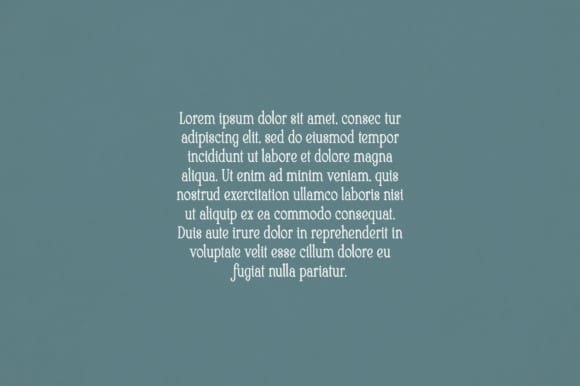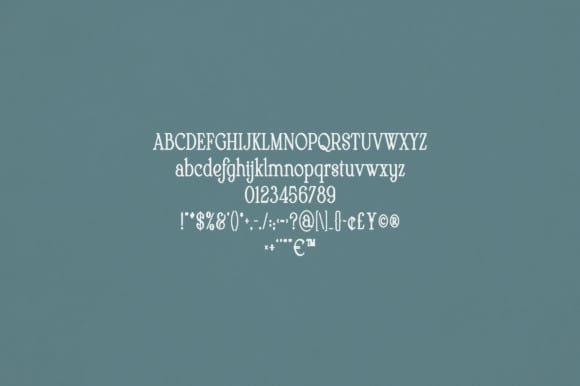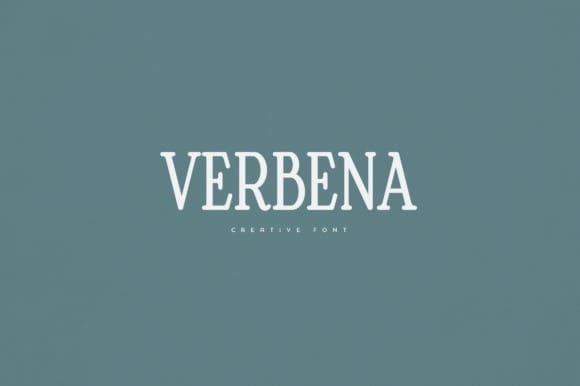
Verbena Font
Verbena Font is an elegant and versatile display font that will make your typography truly unique! It will enchant every logo, branding, headline, or plain text!